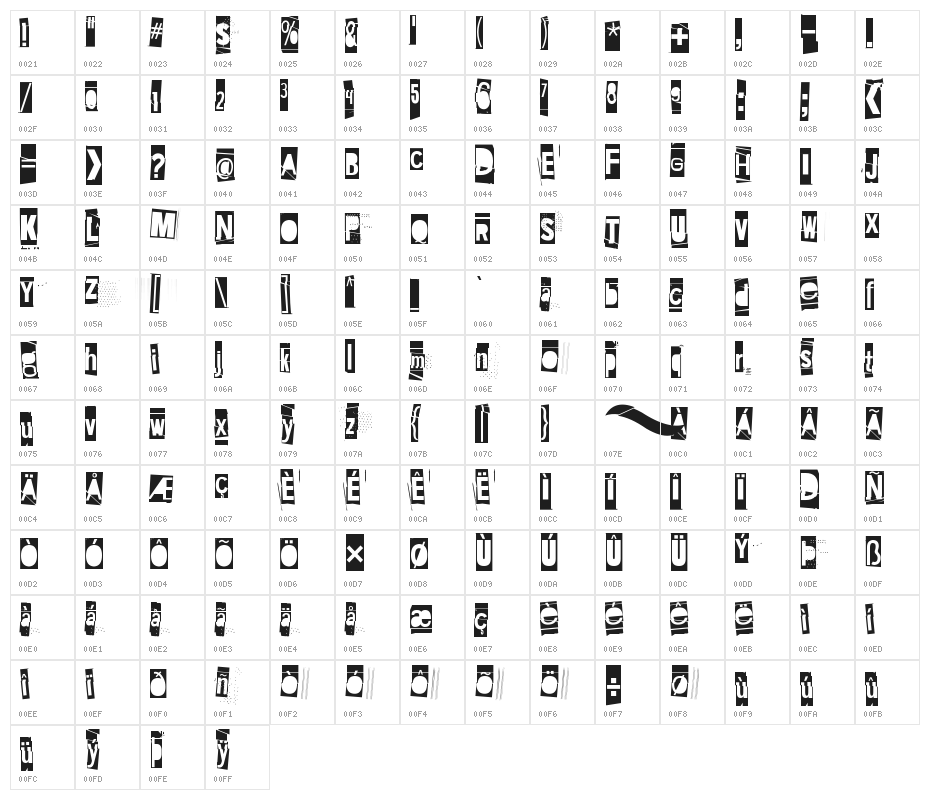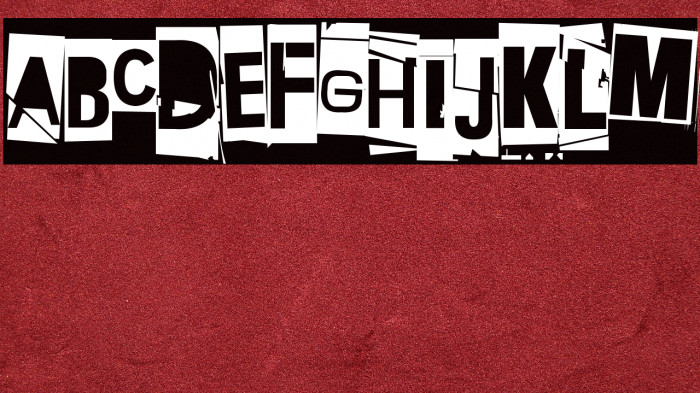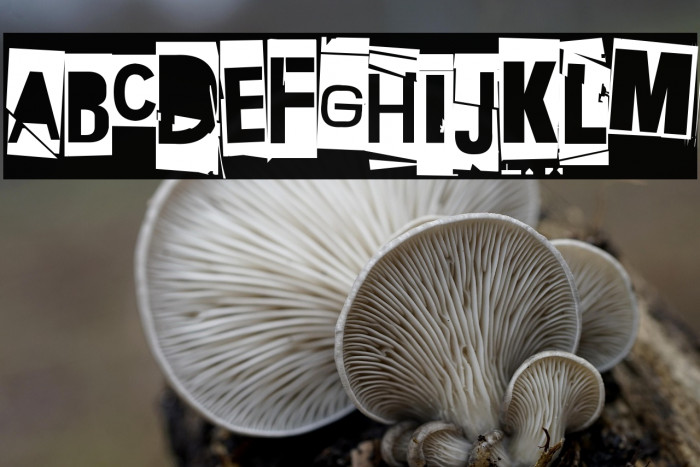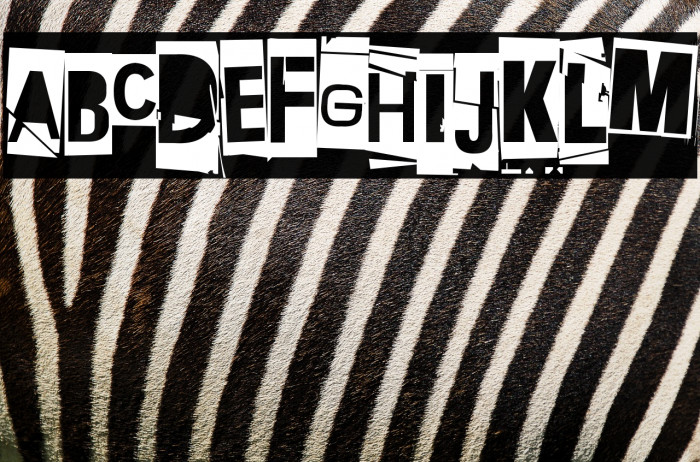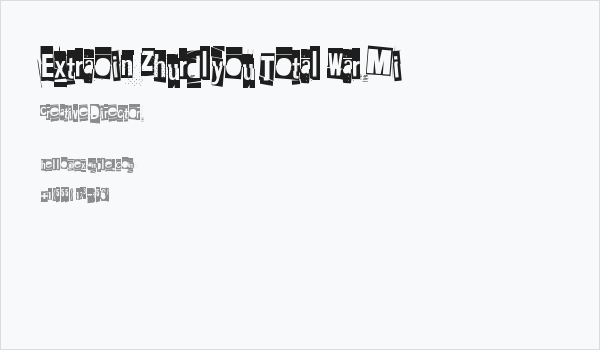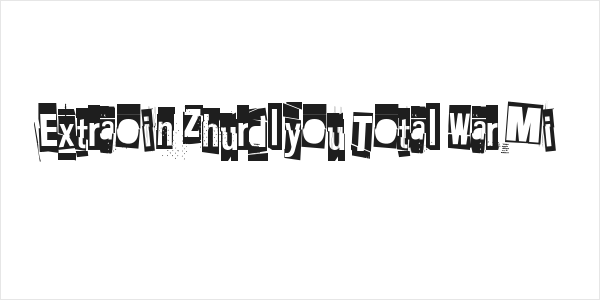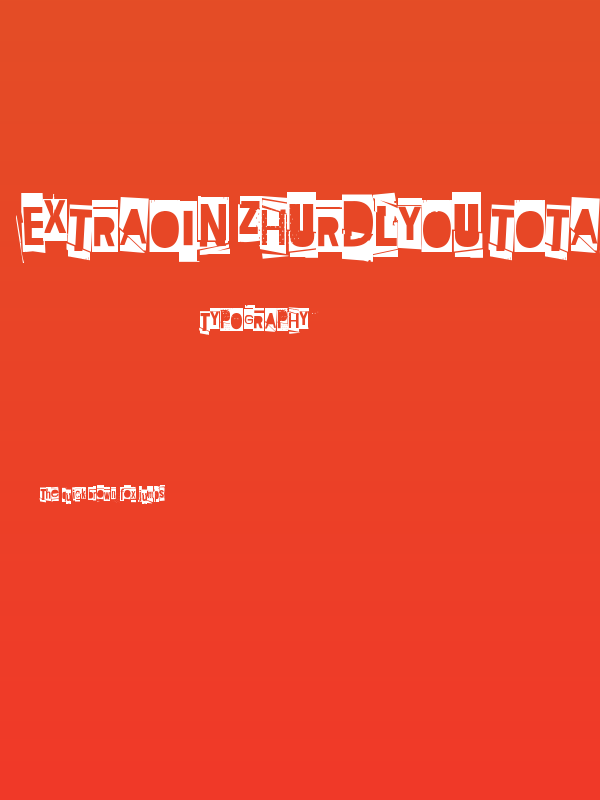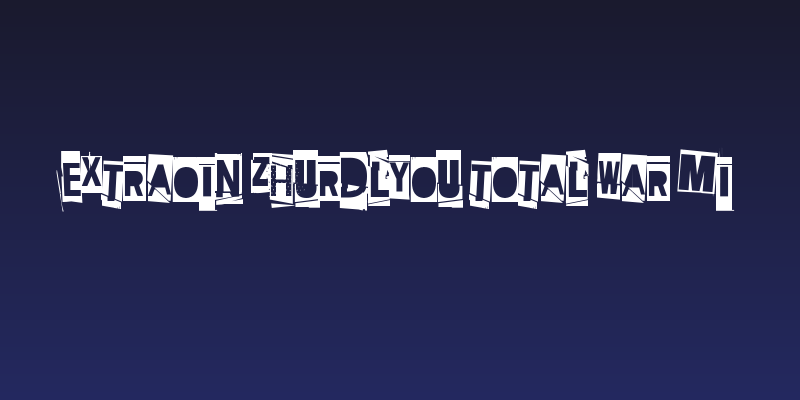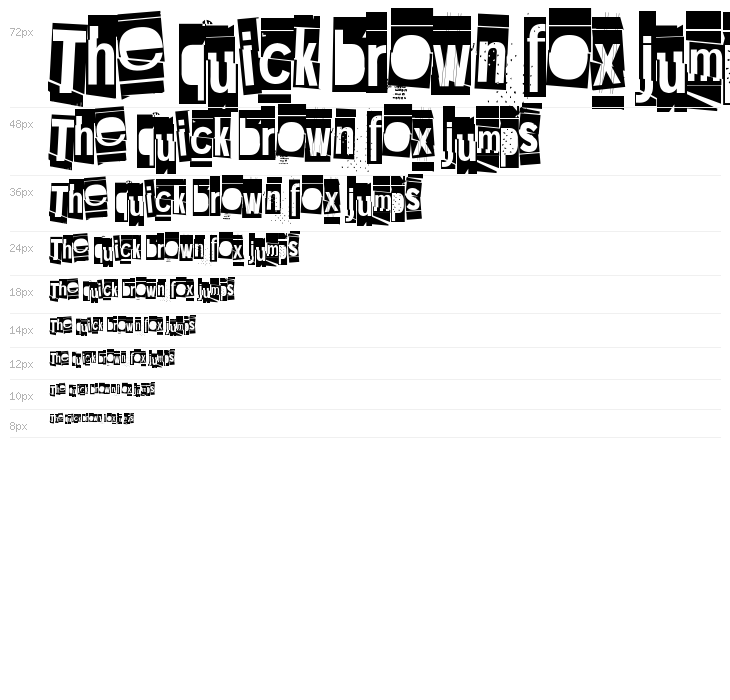
Extraoin Zhurdlyou Total War Mi Font
Extraoin Zhurdlyou Total War Mi Description
This font features a bold, eclectic style reminiscent of a ransom note or collage, with each character appearing as if cut from different sources. The letters are presented in a mix of uppercase and lowercase, each with unique shapes and sizes, creating a chaotic yet artistic appearance. The font's design is highly decorative, with a strong emphasis on individuality for each character. It includes a full set of uppercase and lowercase letters, numbers, and a variety of special characters. The overall look is striking and unconventional, making it ideal for projects that require a bold statement.
| Use Case | Headlines, Posters, Artistic Designs |
| Proposed Projects | Ideal for artistic projects, album covers, posters, and any design needing a bold, unconventional statement. |